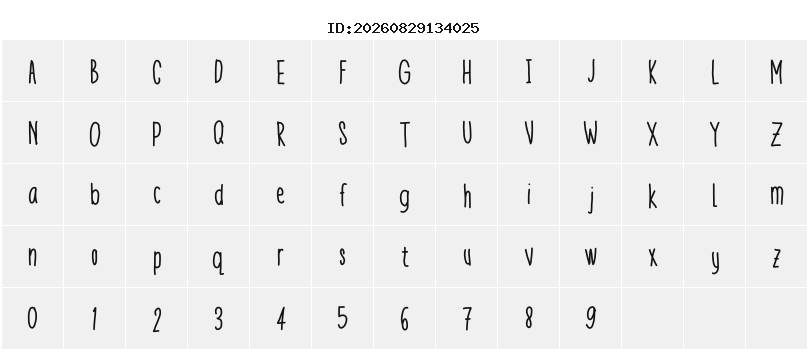
Theeny Preview
• Font Name: Theeny
• Full Font Name: Theeny
• PostScript Name: Theeny
About Theeny.ttf
Theeny.ttf is a modern, elegant sans-serif font designed for ultimate readability and visual harmony. Perfect for branding, headlines, web design, and print materials.